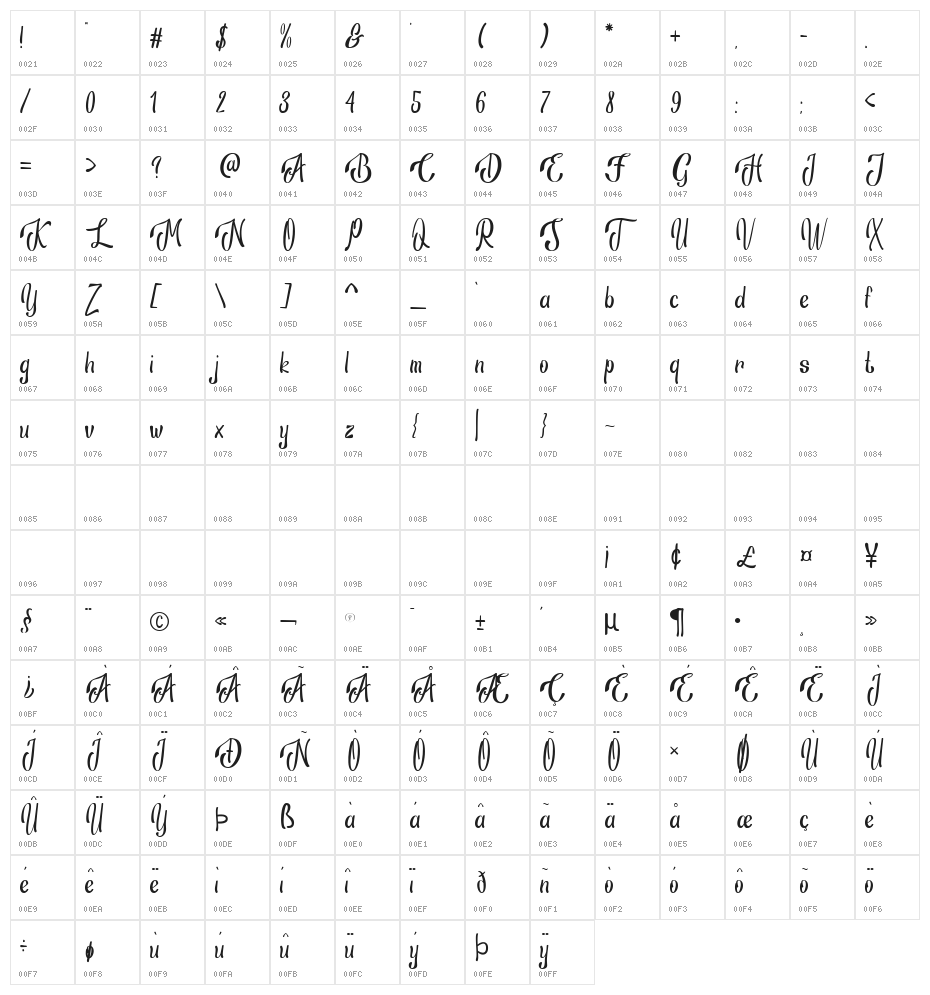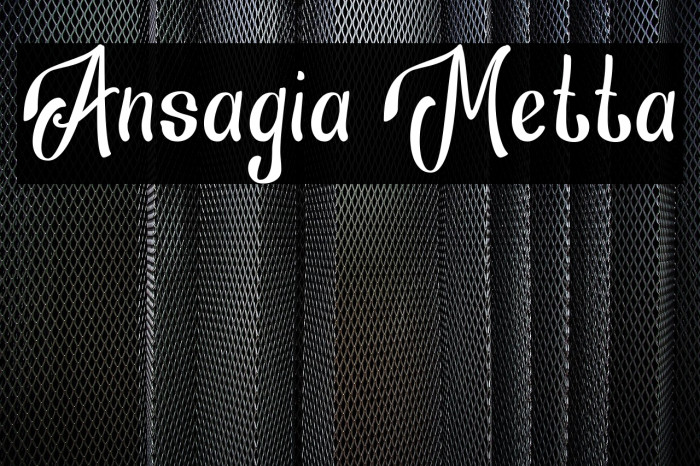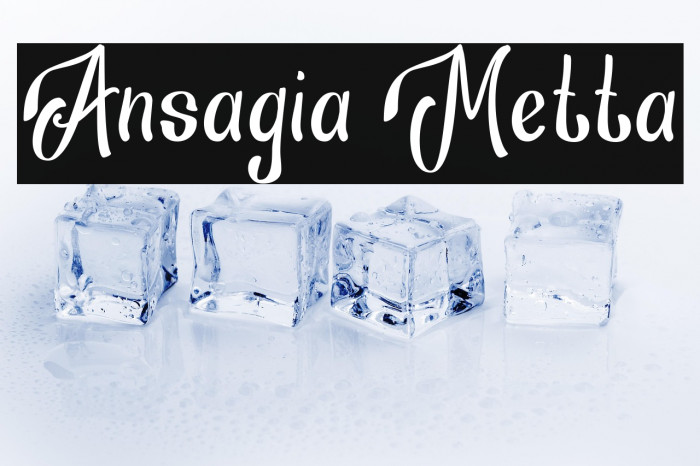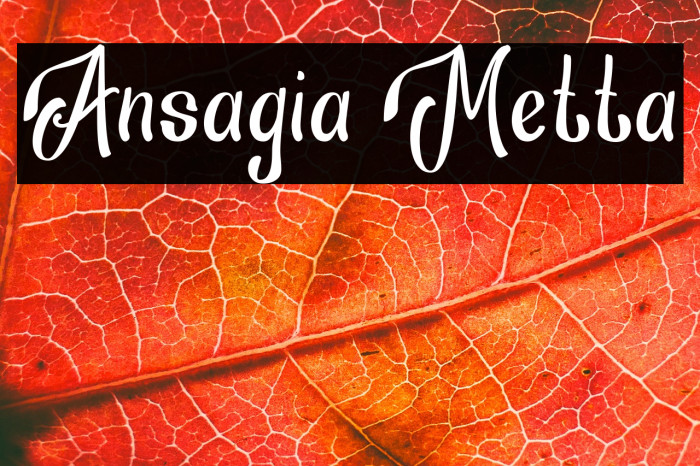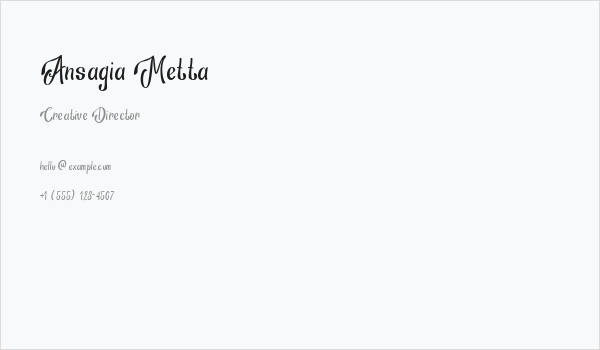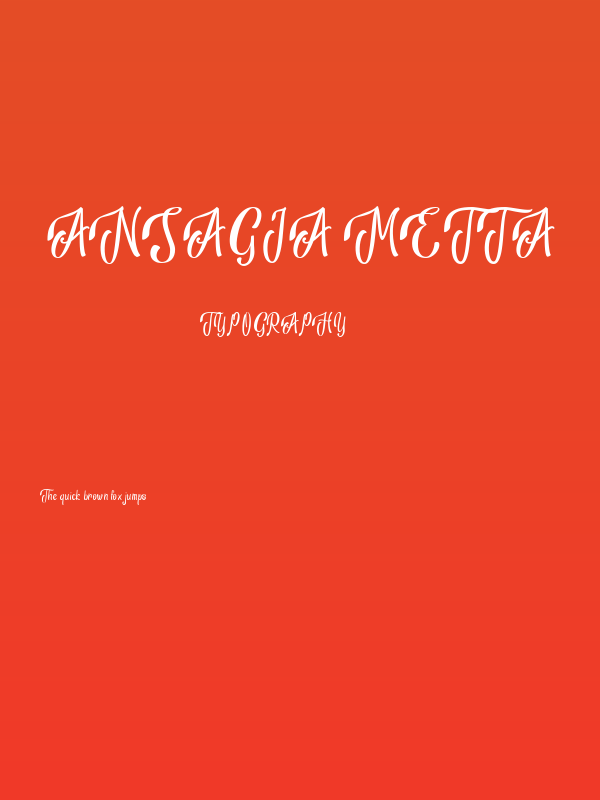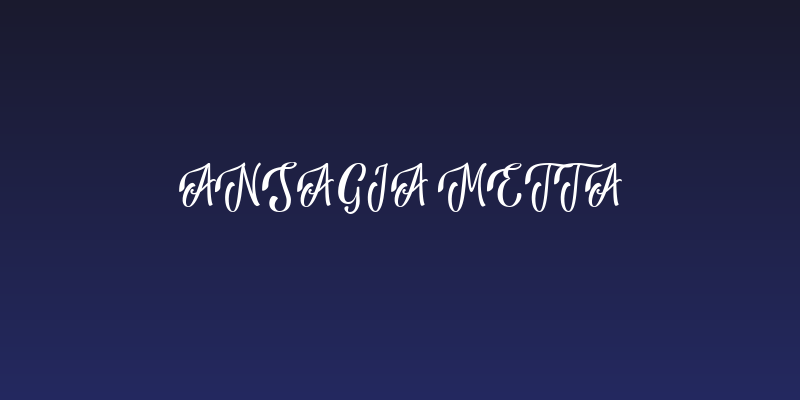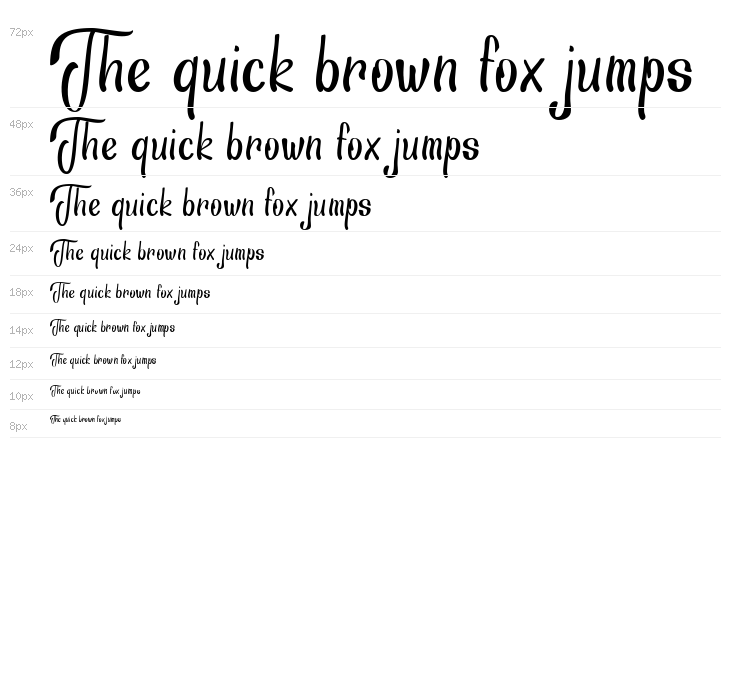
Ansagia Metta Font
Ansagia Metta Description
This font features a decorative and elegant script style with a flowing, cursive appearance. The uppercase letters are ornate, with sweeping curves and flourishes that give a sense of movement and grace. The lowercase letters maintain a consistent style, with a slightly more restrained design that complements the uppercase. The numerals are bold and clear, maintaining the script's overall aesthetic. Special characters are designed with the same attention to detail, ensuring they blend seamlessly with the rest of the font. This font is perfect for projects that require a touch of elegance and sophistication.
| Proposed Projects | Ideal for wedding invitations, elegant branding, greeting cards, and decorative headlines. |